Grafro Techno Font
Introducing our cutting-edge techno font, designed to add a futuristic and sleek aesthetic to your designs. With its sharp lines, geometric forms, and high-tech vibe, this font is perfect for projects that require a modern and forward-looking visual identity. Inspired by the sleek designs of technology and the digital age, this font captures the essence of innovation and progress. Its clean and precise letterforms, along with its distinct futuristic style, make it an excellent choice for technology-based branding, gaming graphics, sci-fi posters, and digital interfaces.
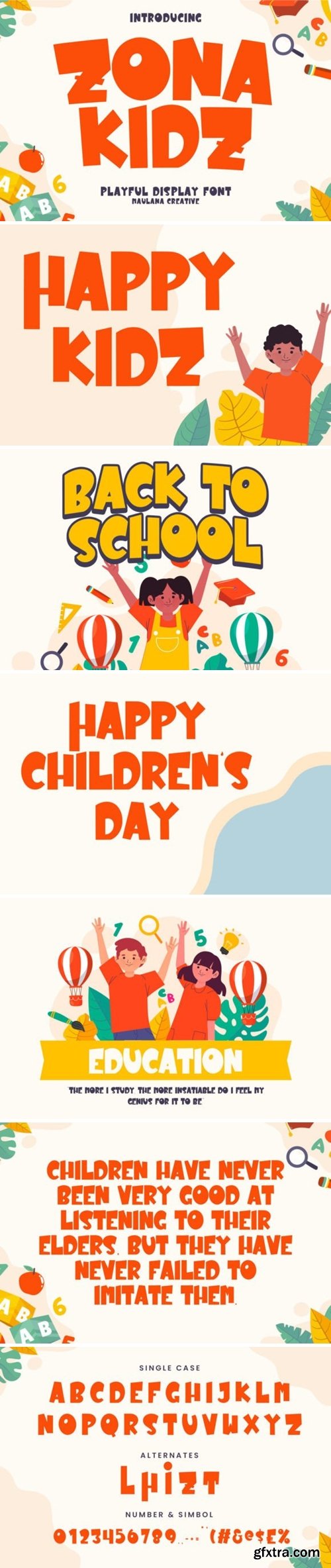
Zona Kidz Font
Zona Kidz is a modern round sans serif font. Bold strokes, fun characters with a bit of ligature and alternates. This font is good for logo design, Social media, Movie Titles, Books Titles, short text even long text letters, and is good for your secondary text font with script or serif. Make stunning work with Zona Kidz font.
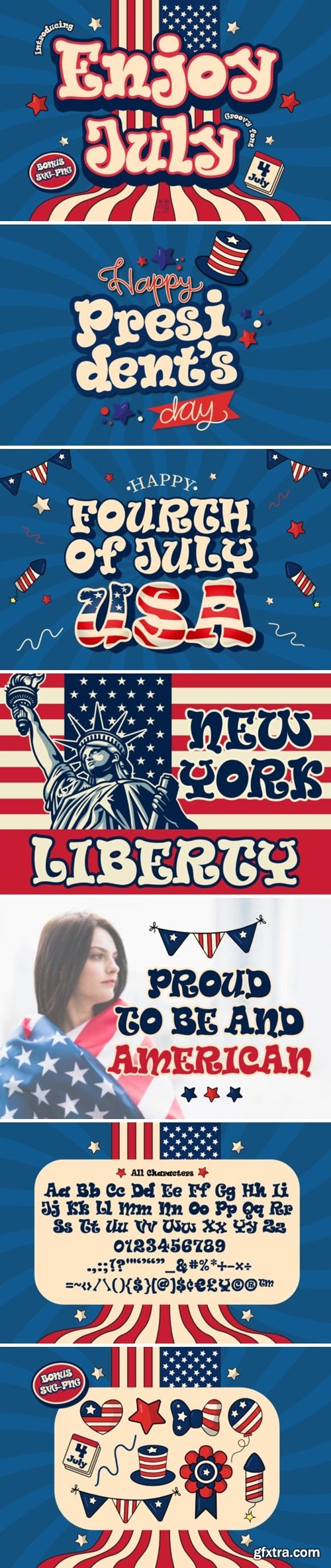
Enjoy July Font
Enjoy July is a Display font Groovy Style with a great punch. Everything written in this font will be instantly recognizable and will attract attention. It will work great for comic book style, online games, cards, love shirts, posters, movie titles, eye-catching social media posts, or anything that requires youthfulness and courage. is a minimal modern decorative font with a great punch. Everything written in this font will be instantly recognizable and will attract attention. It will work great for comic book style, online games, cards, love shirts, posters, movie titles, eye-catching social media posts, or anything that requires youthfulness and courage.
Whotney Haeston Font
Whotney Haeston – Handwritten Script Font, from Integritype Studio, is a premium Handwritten Script Font, perfect for any project like: logos, branding projects, homewares designs, product packaging, mugs, quotes, posters, shopping bags, t-shirts, covers books, business cards, invitation cards, greeting cards, labels, photography, watermarks, special events and all your other luxury projects that require a premium taste.
Donuthela Font
Donuthela – Display Handwritten Font , from Perspectype Studio, suitable for any projects such as: logos, branding projects, homeware designs, product packaging, mugs, quotes, posters, shopping bags, t-shirts, book covers, name card, invitation cards, greeting cards, label, photography, watermark, special events, and all your other lovely projects that need a beautiful script taste.
Wetzilla is a Handwritten Script font that will make your designs look classic, Farmhouse, Boho, and Feminine. It is a great font for events, Wedding Project, fashion, apparel projects, signature, album covers, logos, branding, magazines, social media posts, advertisements, but it also works great for other projects. Add it to your fonts’ library, and it will enhance your creativity!
A serif modern and classic typeface that has own unique style & modern look. This typeface is perfect for an elegant & luxury logo, book or movie title design, fashion brand, magazine, clothes, lettering, quotes, and so much more.
Cagke Font
Cagke is a font that offers a captivating classic and retro style. With nine weights ranging from thin to Black, Cagke provides flexibility for various design needs. The main advantage of Cagke is its ability to support multiple languages, making it easily usable worldwide. With the provided OpenType features, Cagke offers additional variations and sensitivity when designing with this font. Cagke is highly suitable for designs with classic, retro, vintage, modern, or elegant aesthetics. In various projects, including posters, books, magazines, advertisements, and even films, Cagke will provide the perfect touch. Another advantage of Cagke is its ease of development to meet various design requirements. Classic and retro styles, this font will enrich every design creation you make.
Mochi Peach Font
Is a font with simple style but cute. With distinctive handwritten characters perfect for branding projects, logos, wedding designs, media posts, advertisements, product packaging, product designs, labels, photography, watermarks, invitations, stationery, and any project who need handwritten dishes.
Begaron - Retro Futurism Fonts
Looking for a font that will transport your audience to a futuristic world? Look no further than Begaron! Begaron is the perfect font for any project that needs a touch of the future. Begaron is inspired by the design aesthetic of the 1950s and 1960s, when people were optimistic about the future and imagined a world of flying cars, robots, and space travel. This font captures that spirit of optimism and excitement, and it's sure to make your project stand out. Download Begaron today and start creating your own futuristic masterpieces! Perfectly fit for futuristic design concept, game, esport logo, streamer overlay, poster design, futuristic logo, and many more.
Chatone font
The font type is from the sans-serif family which is easy to read, not tired to look at, and is given a touch of comfort in its glypsh. hairdressing for beauty products is the hallmark of this font.
FontBundles - Nicemilk Display Font 2238589
Nicemilk is a unique font with all-caps style, comes with multilingual perfect for your projects, branding products, logos, product packaging, merchandise and more.
Proudly present Bridga Goldeni Typeface , created by Storytype. A serif modern and classic typeface that has own unique style & modern look. This typeface is perfect for an elegant & luxury logo, book or movie title design, fashion brand, magazine, clothes, lettering, quotes, and so much more.
Gracias Is A Vintage Display Typeface Inspired By Blackletter Characters.